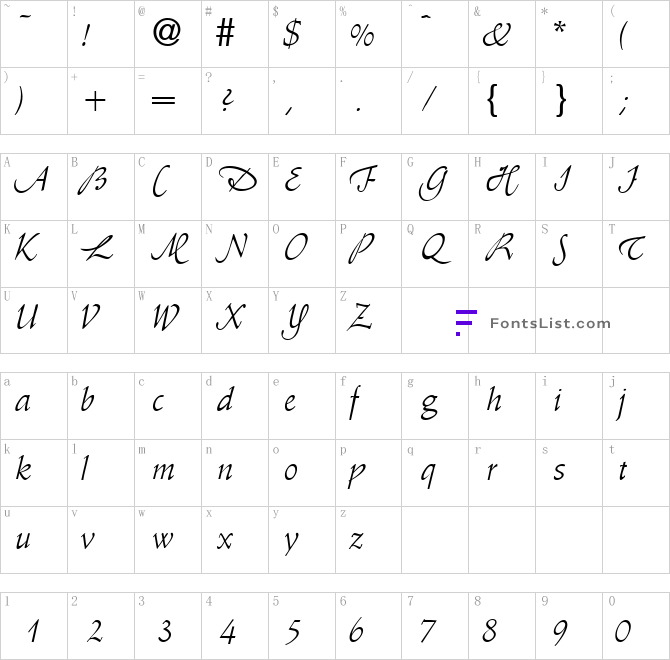
- Font Name:AmaryllisSwash DB
AmaryllisSwash-Regular-DB.ttf is a very beautiful artistic font, AmaryllisSwash-Regular-DB.ttf is widely used in the design and printing of various books and pictures,AmaryllisSwash-Regular-DB.ttf has a strong visual impact,AmaryllisSwash-Regular-DB.ttf is a commonly used font in newspapers, magazines and books, and is used in posters, e-commerce Poster design, store design, logo design, font design and other fields.AmaryllisSwash-Regular-DB.